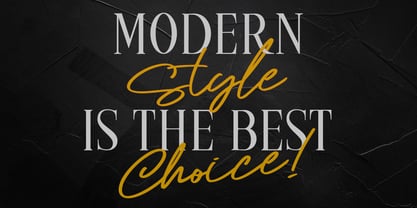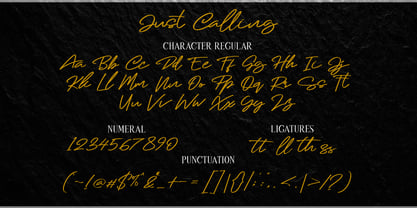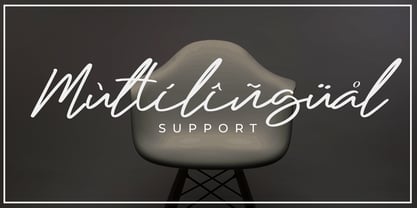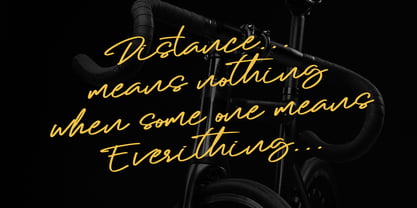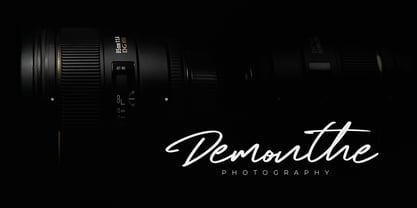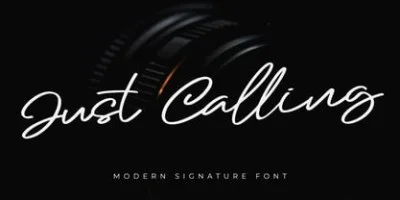
Few typefaces manage to balance visual harmony and precise spacing with genuine day-to-day practicality. Just Calling is one of them. The typeface brings an elegant, calligraphic sensibility to a broad range of creative disciplines, with consistent type colour across continuous text that holds up whether the work is print-first or screen-first.
In practice, Just Calling proves particularly effective for logo design, social media graphics, beauty packaging, brand identity systems, product labels. Designers reaching for it find that the type decisions feel resolved rather than laboured — a useful quality when client timelines are tight.
Ascenders and descenders are drawn with generous extents that give the script its characteristic rhythm. Ligature pairs have been individually tested to prevent collisions, and the baseline is slightly bounced to suggest a natural, unhurried hand.
The range of applications extends to poster creation, wedding invitations, feminine branding, fragrance labels. That breadth is deliberate: the proportions and spacing were stress-tested across a wide range of mock briefs before the typeface was finalised.
Brand strategists building visual languages find Just Calling a reliable choice for projects that demand both personality and restraint. The design avoids the self-conscious quirkiness that dates quickly, settling instead for considered distinctiveness that holds up over time.